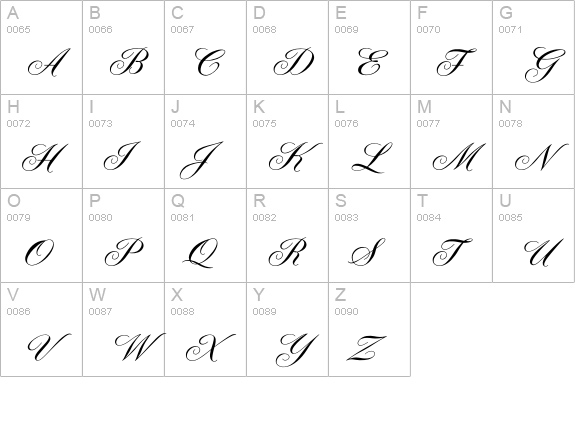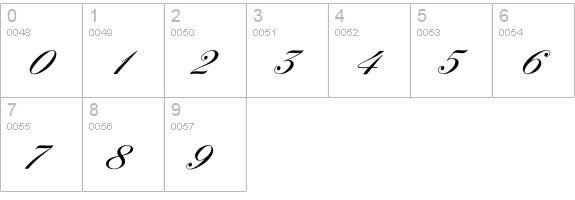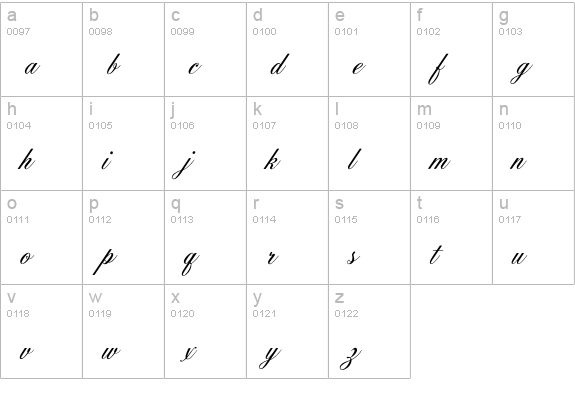
OPTIYork-Script Font Details
Introducing OPTIYork-Script, a charming and elegant handwritten font that exudes sophistication and style. With its graceful curves and flowing lines, this font is perfect for adding a touch of class to any design project. Whether you're creating wedding invitations, branding materials, or social media graphics, OPTIYork-Script will bring a sense of refinement to your work. What's even better is that OPTIYork-Script is completely free to download at FontsMarket.com! Yes, you read that right - this stunning font is available at no cost, making it accessible to everyone who wants to elevate their designs with a touch of luxury. Don't miss out on this opportunity to enhance your projects with the beauty of OPTIYork-Script. Download it today and let your creativity shine!